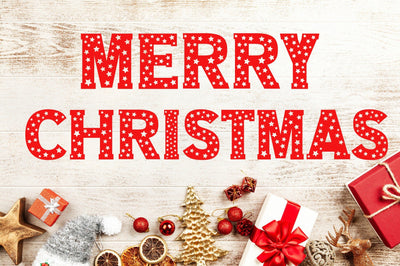
Christmas Stars Font
Christmas Stars Typeface.
Christmas Font with star pattern.
Christmas Stars is a bold and festive display font, featuring star ornaments.